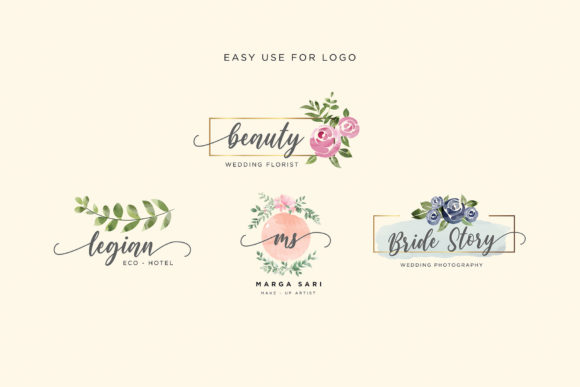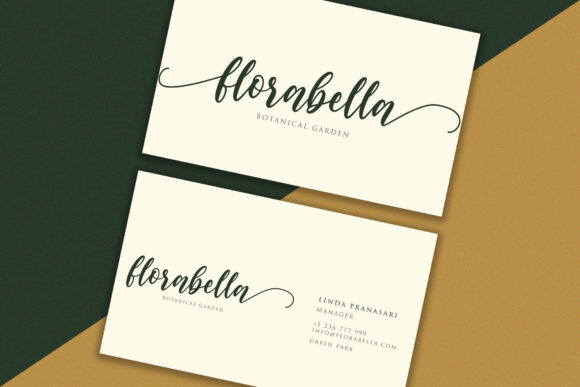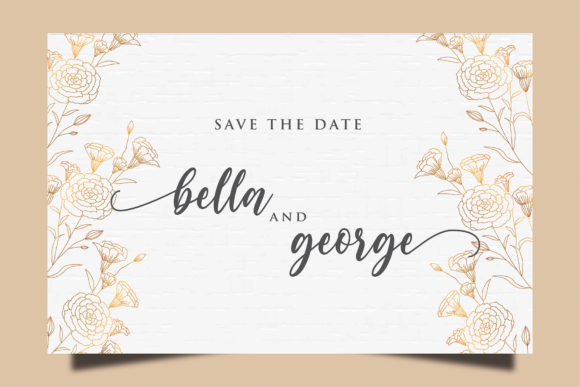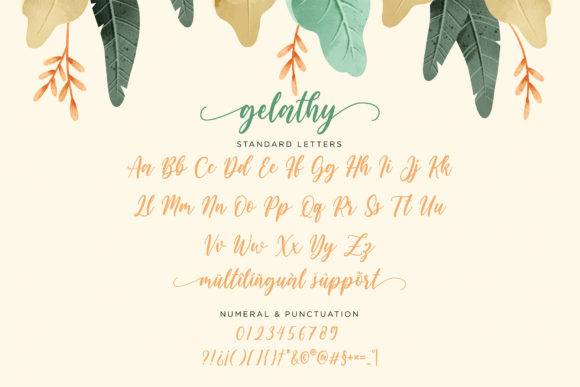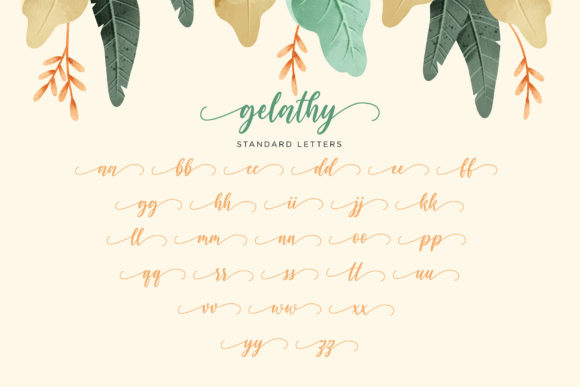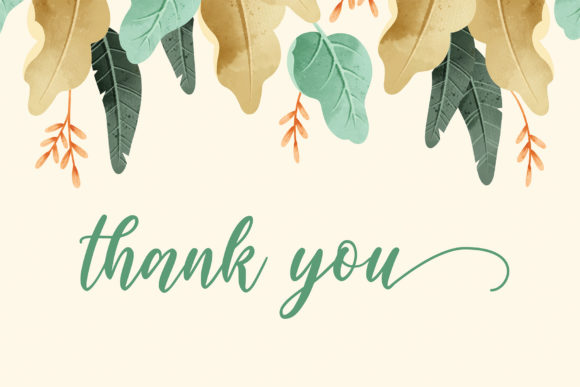
Introduction to Gelathy Font
As a designer, you’ve probably experienced that moment when you’re working on a creative project and the perfect font just seems to be missing. You want something that exudes elegance, romance, and a touch of whimsy. That’s exactly what the Gelathy Font is designed to provide – a beautiful script font that’s perfect for adding a personal touch to your high-quality designs.
With its authentic calligraphy feel and transparent background, the Gelathy Font is a valuable resource for designers who want to take their creative projects to the next level. Whether you’re working on a wedding invitation, a blog post, or a social media graphic, this font is sure to add a touch of sophistication and class.
Key Features of Gelathy Font
- High-quality design with a transparent background, ideal for creative projects requiring a subtle yet eye-catching touch.
- Features a unique, elegant design that can be used for a variety of applications, from branding and marketing materials to digital products and websites.
Honest Review: Gelathy Font
I recently came across the Gelathy Font, and I must say, it’s a great addition to my design resource library. This high-quality font is perfect for creative projects that require a modern and sleek look.
The Gelathy Font is available for free download, which is a huge plus for designers like me who are always on the lookout for great resources without breaking the bank. The font is also incredibly versatile, making it suitable for a wide range of applications, from branding and logos to digital products and interfaces.
- ✨ High-quality design that’s perfect for modern projects
- ✨ Transparent background, making it easy to use with any design
- ⚠️ Limited character set, which may not be suitable for projects that require a wide range of characters
- ⚠️ Not ideal for projects that require a bold, sans-serif font
Overall, the Gelathy Font is a great resource for designers who are looking for a high-quality, modern font that’s perfect for creative projects. While it may have some limitations, I believe it’s definitely worth checking out.
Gelathy Font
The Gelathy Font is a high-quality design resource perfect for any creative project. With its transparent background, this font can be easily integrated into various design platforms.
Tips for Getting the Most Out of Gelathy Font
For optimal results, use the Gelathy Font in conjunction with a high-quality image or design element. Experiment with different font sizes and colors to achieve the desired effect.
The Gelathy Font is suitable for a wide range of creative projects, including branding, marketing materials, and digital designs. Its transparent background makes it easy to layer over images or other design elements.